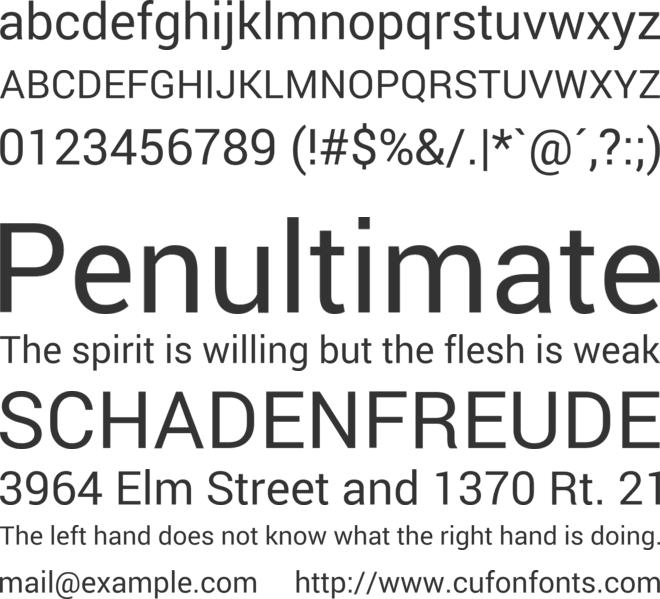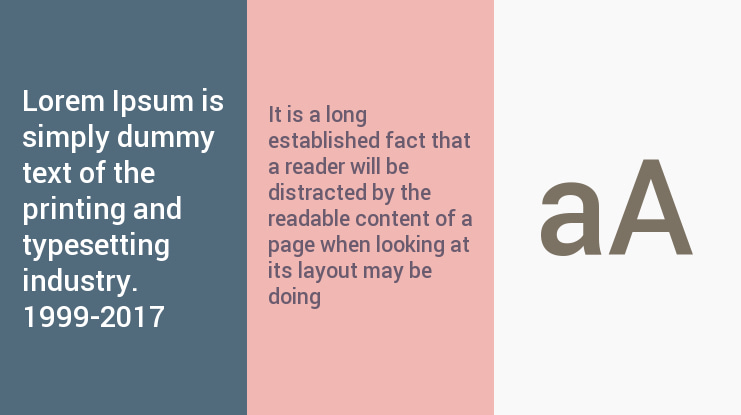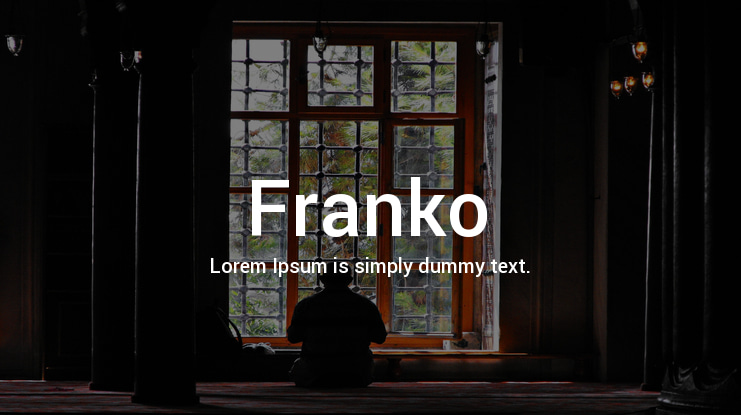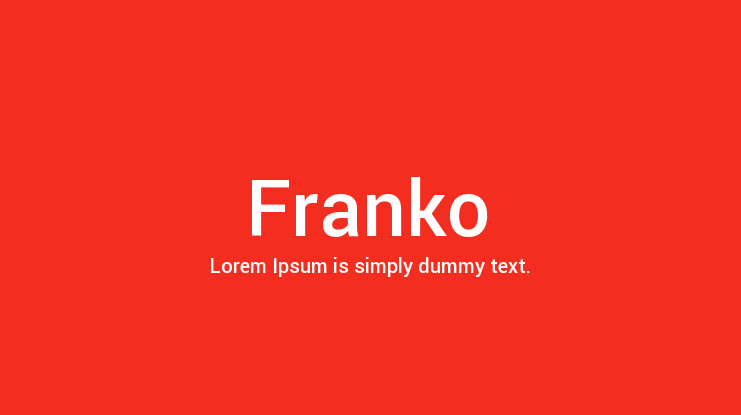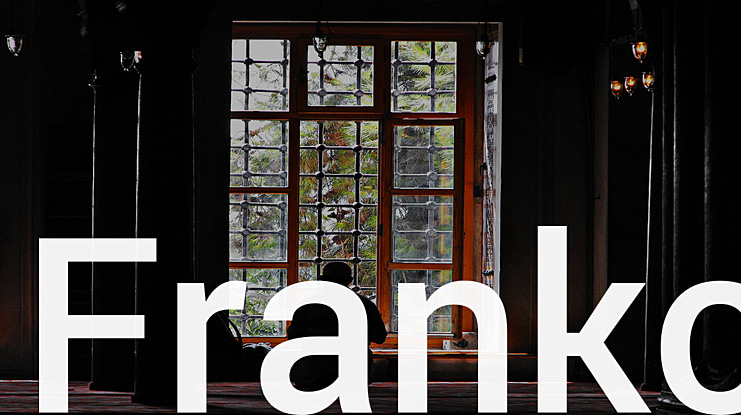
Franko Font Family
Franko and Franco are the old Roboto v1.2 'frankenfonts' with the feature set rewritten for minimal surprise. Renamed to avert clash with the current crop of Roboto. Franko is the regular width, Franco the condensed width. These fonts are NOT hinted/instructed. If you need them hinted, you'll have to grab ttfautohint and hint them yourself.